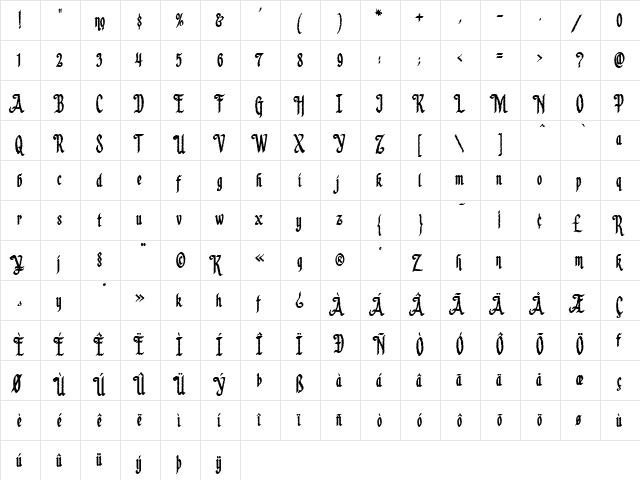
LHF Californian Antique Regular
Design Context for LHF Californian Antique Typeface
LHF Californian Antique has the warm character of retro typography — evoking diners, record sleeves, and the golden age of print advertising.
Perfect for vintage-inspired branding, retro packaging, nostalgia campaigns, and period-accurate editorial design.
Font Pairing: Combine LHF Californian Antique with a simple slab or neutral sans — period-accurate companions reinforce the vintage feel without competing for attention.
Pro Tip: Use LHF Californian Antique for headlines and pull quotes rather than body copy — its personality is best appreciated in short, focused bursts.